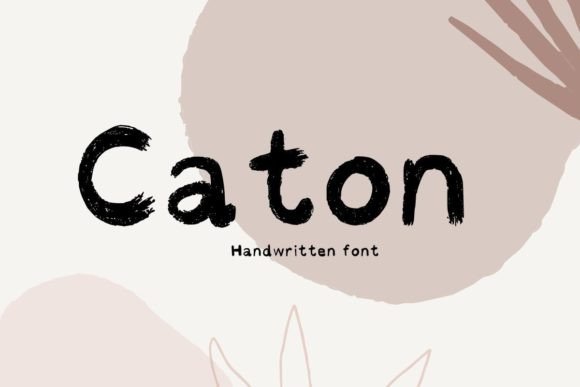
Step into the realm of charm and character with Caton Font, a script font family that captivates with its playful and vibrant energy. Created by the talented ByXiStudio, Caton is a handwritten font that exudes a sense of whimsy and authenticity. Its unique character shapes and rough edges lend an organic and handcrafted touch to your designs, making them stand out from the ordinary.
With Caton Font, you have the power to transform your creative projects into charming expressions of your individuality. Whether you're crafting heartfelt greeting cards, creating eye-catching posters, or designing memorable branding materials, Caton adds a delightful and handmade feel that resonates with your audience. It's the perfect font for capturing the essence of friendship, love, and all the heartwarming emotions that connect us.
Imagine the joy of receiving a personalized letter written in Caton Font. The unique character shapes and rough edges create a sense of warmth and intimacy, as if the words themselves were dancing across the page. Caton brings a personal touch to your correspondence, making it a treasured keepsake for years to come.
For designers seeking to create a lasting impression, Caton Font is the ultimate choice. Its playful and vibrant energy breathes life into posters and branding materials, demanding attention with its captivating charm. Whether you're designing for a children's book, a whimsical café, or a vibrant fashion brand, Caton adds a touch of magic that sets your work apart.
But Caton Font is more than just a pretty face. It's also incredibly versatile, lending its playful charm to a wide range of design projects. From invitations and wedding stationery to social media graphics and website designs, Caton effortlessly adapts to your creative vision. Its unique character shapes and rough edges add a touch of intrigue and playfulness that keeps your audience engaged and eager for more.